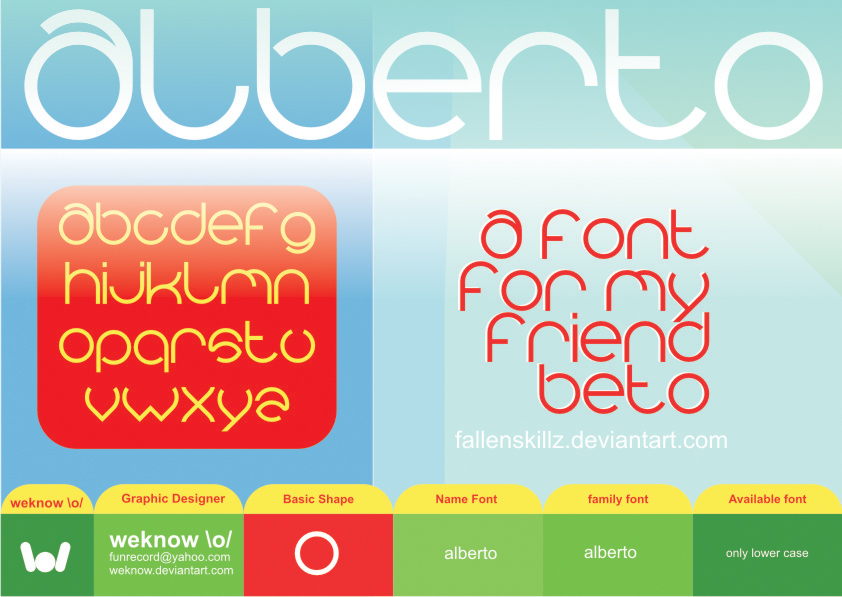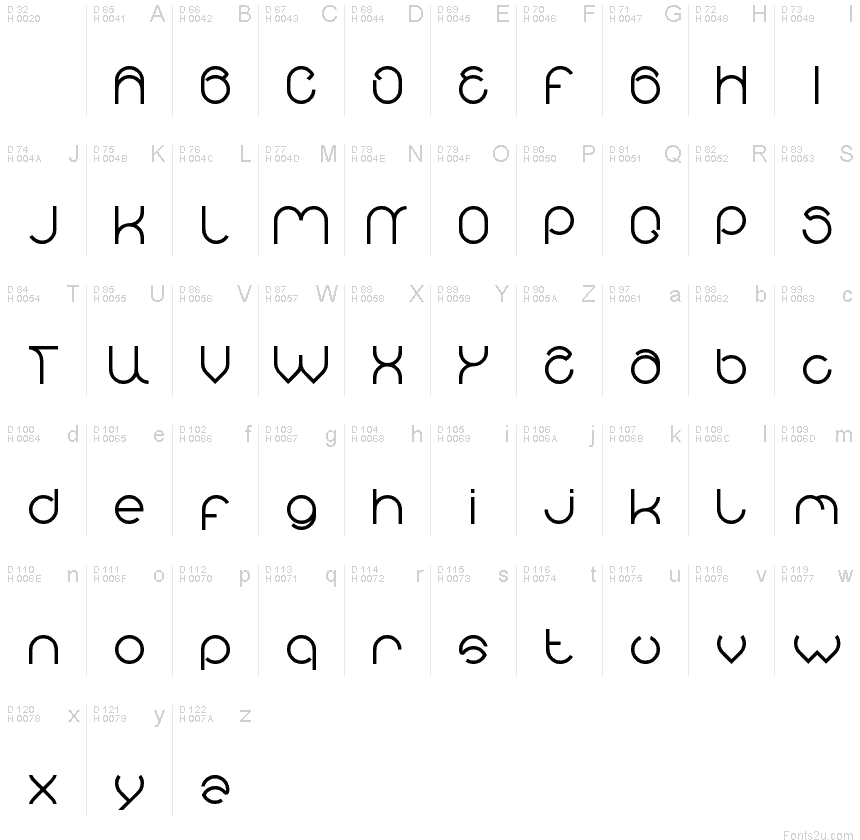
alberto
update fixing letter, capital case, lower case, symbol, number, punctuation, plus alberto-Bold, alberto-Bold-Italic, alberto-Hollow, alberto-Hollow-Inverse, alberto-Italic
dear friend
my new updating new font is dedicated to http://fallenskillz.deviantart.com/ :iconfallenskillz: beto aka alberto
its friendly suit and nice to simply design, futuristic theme, or what ever you like